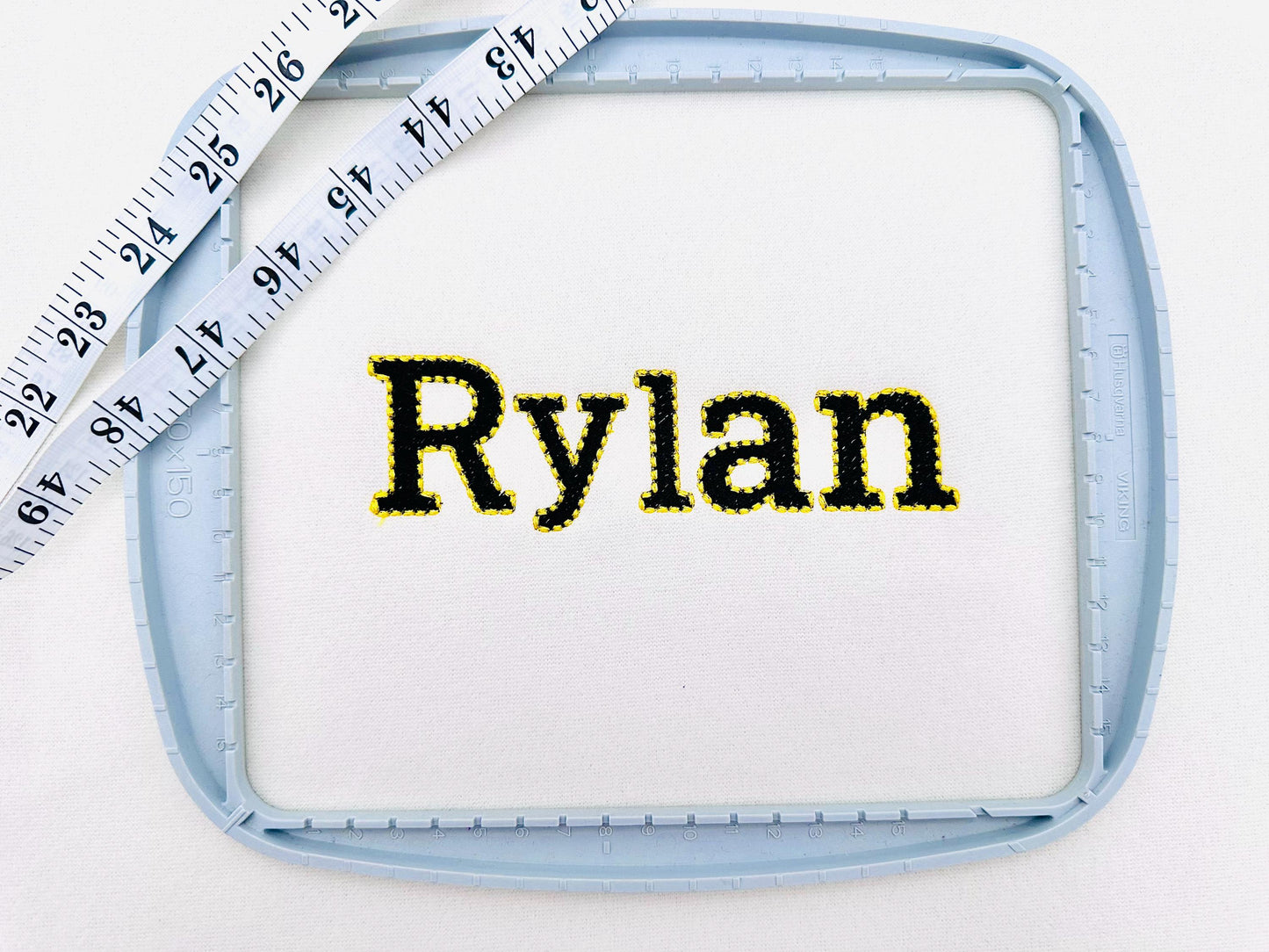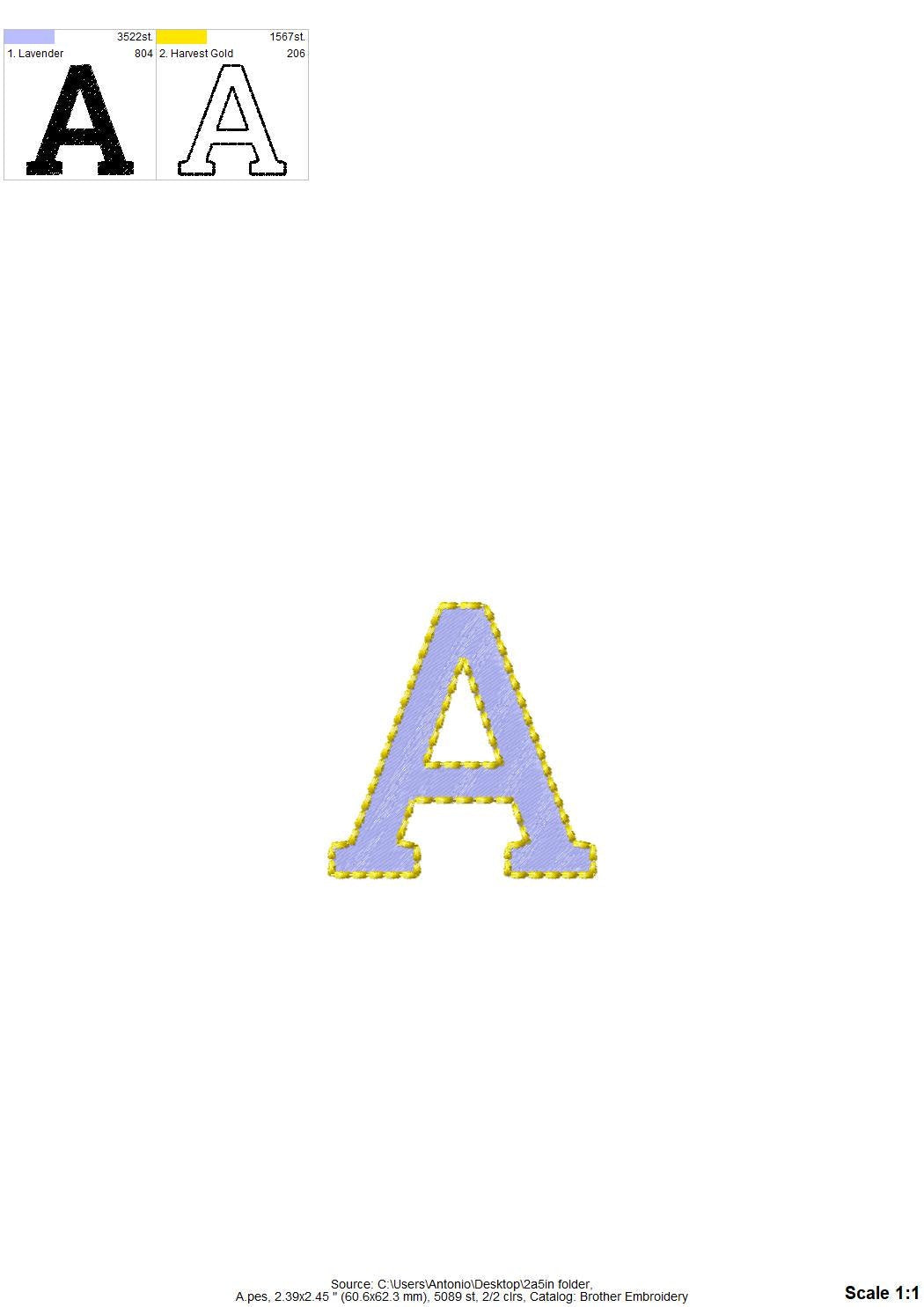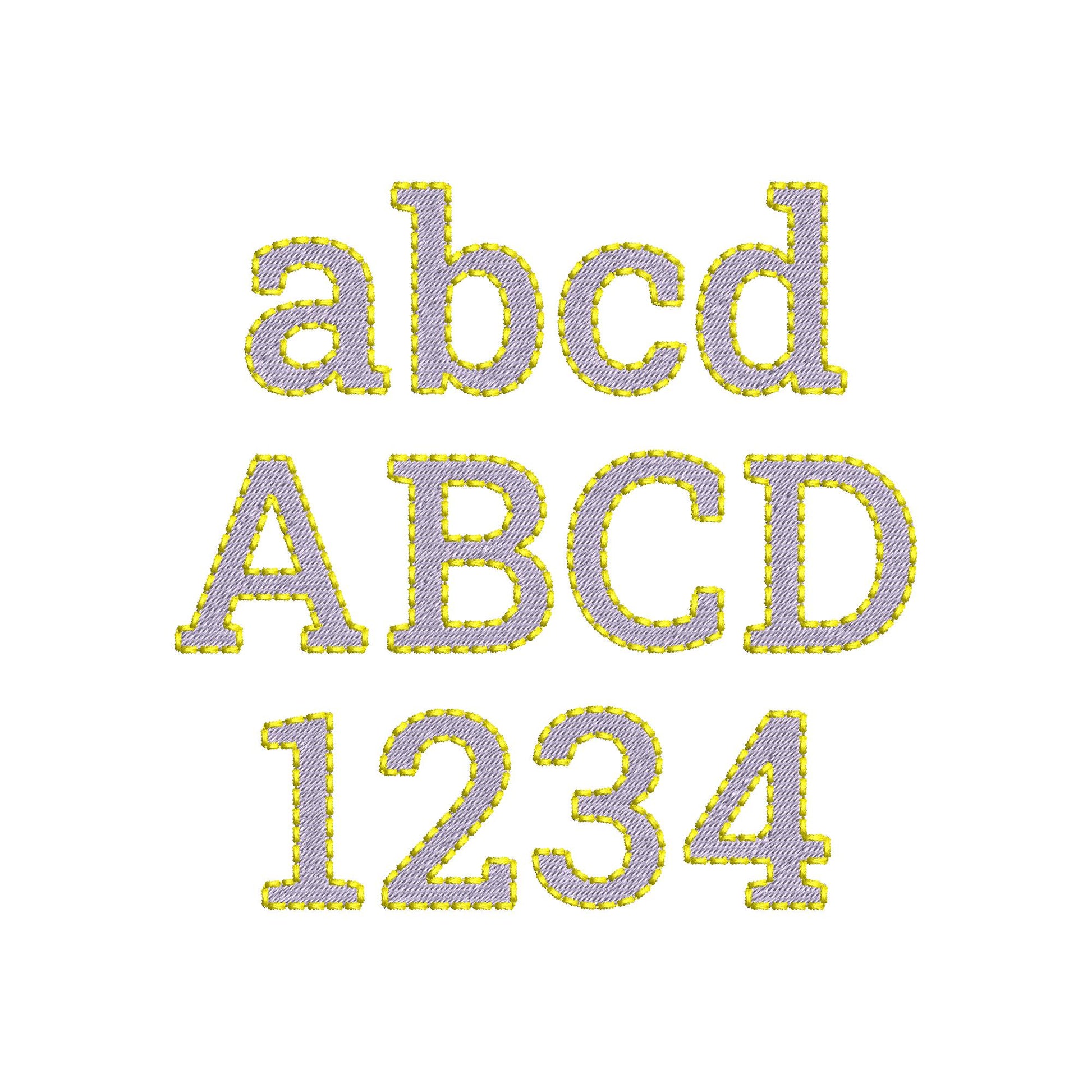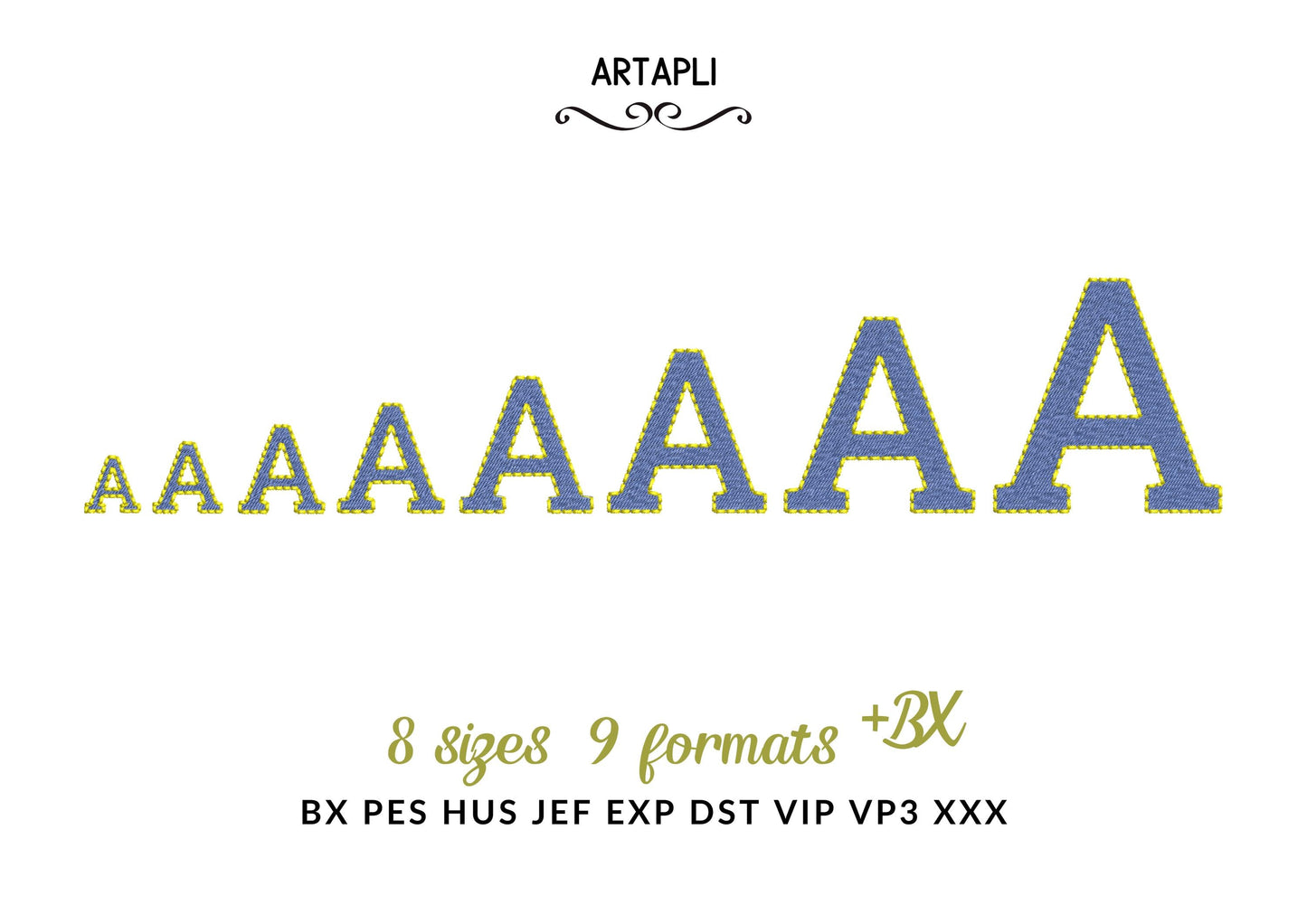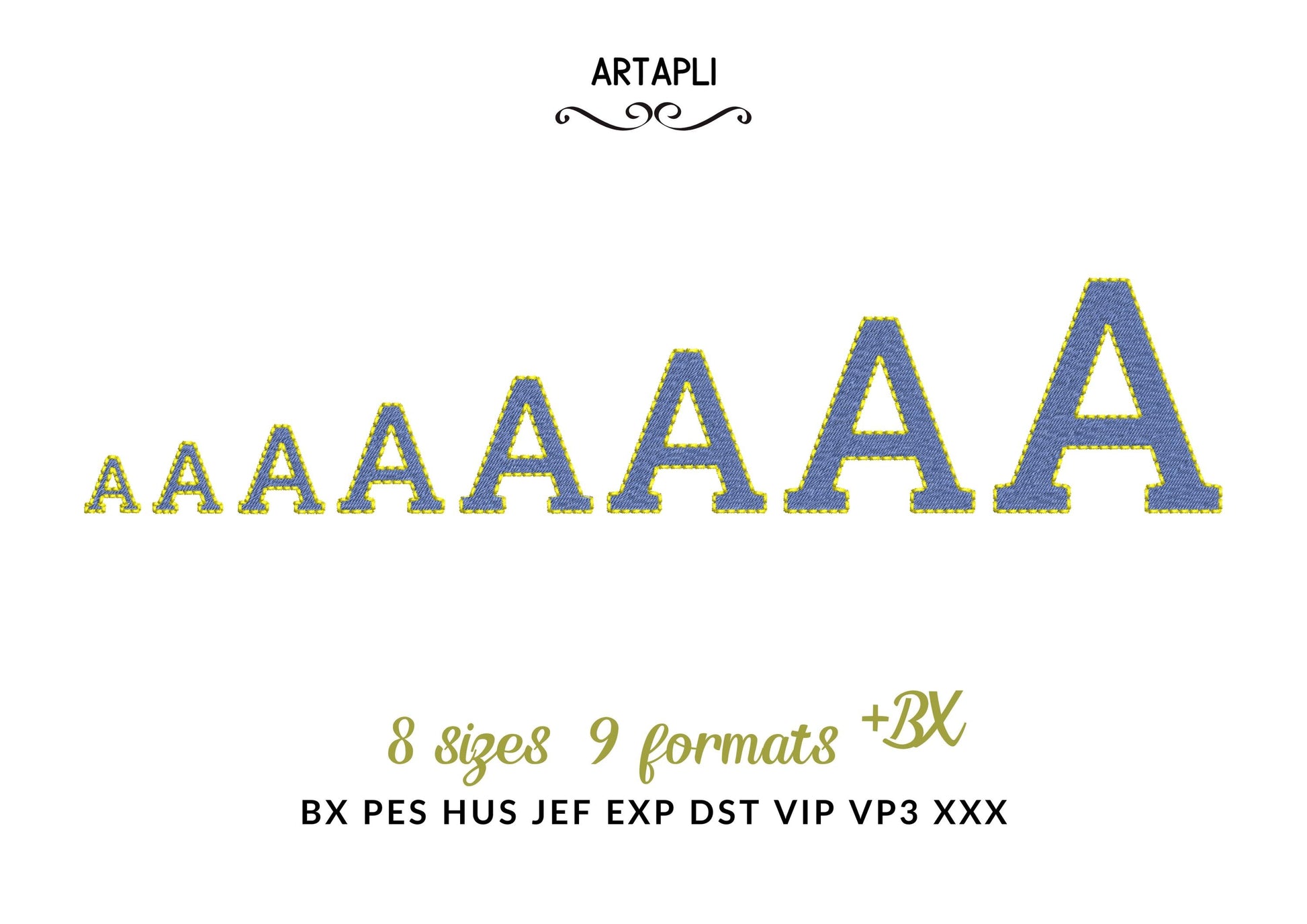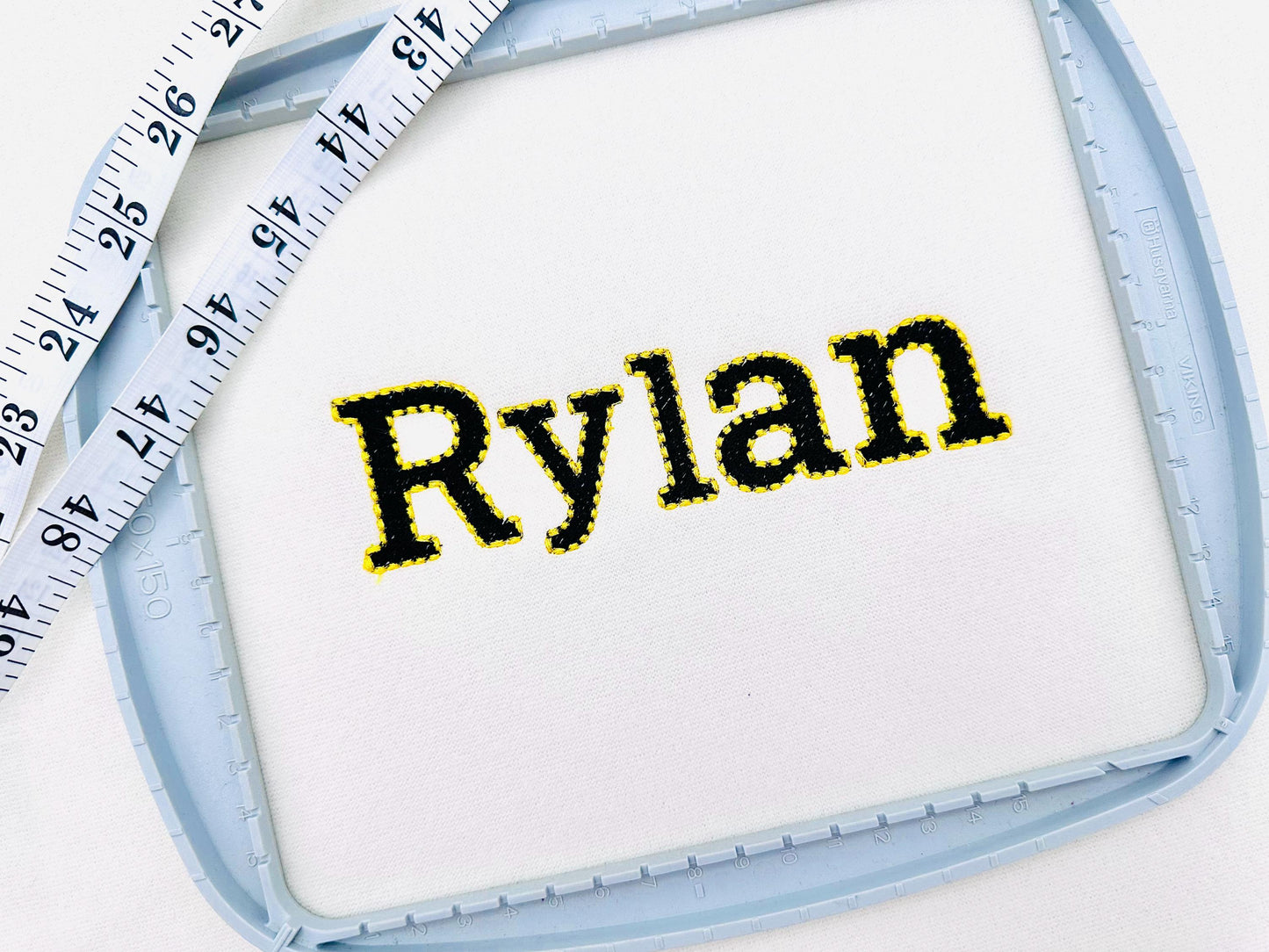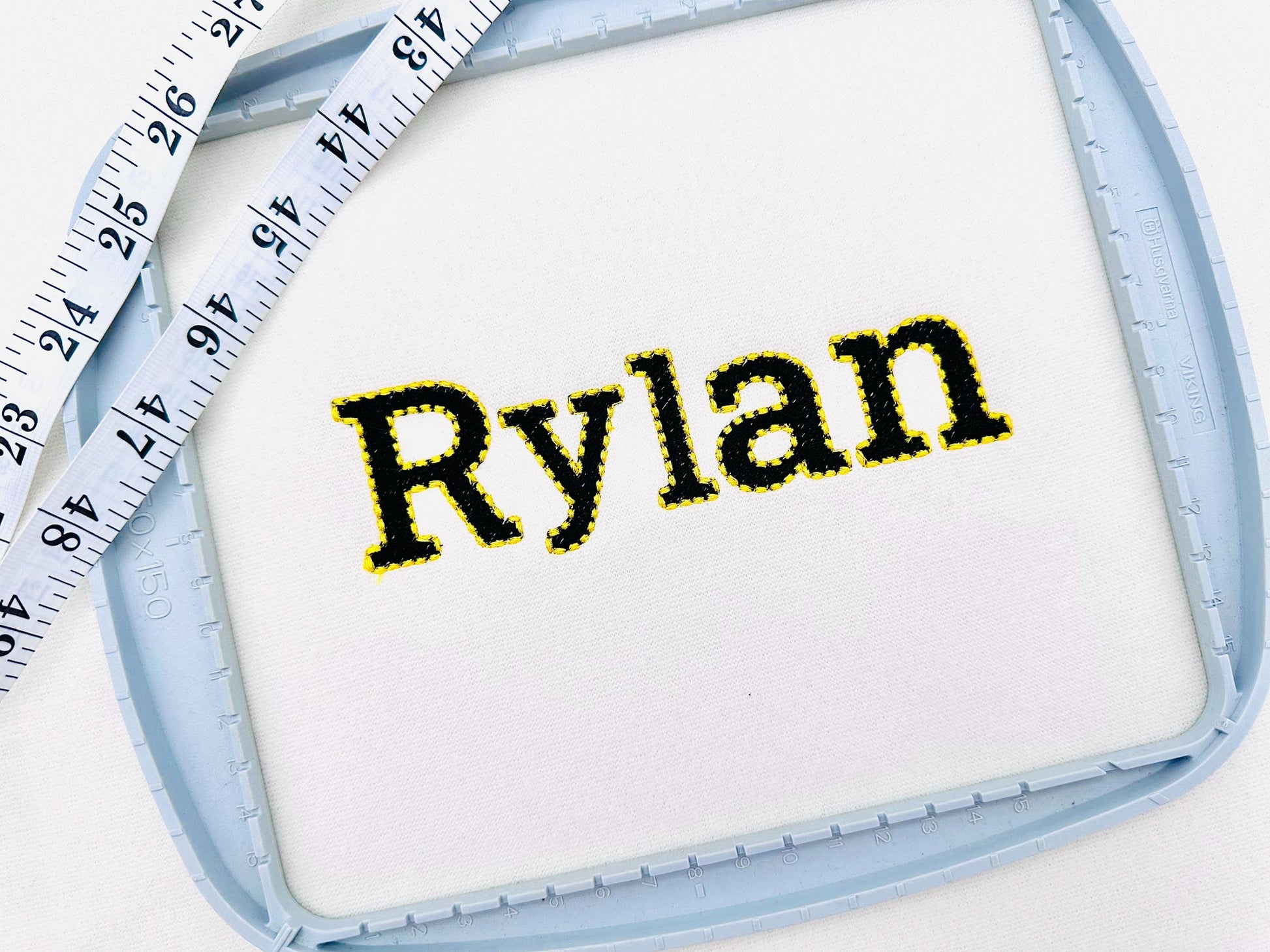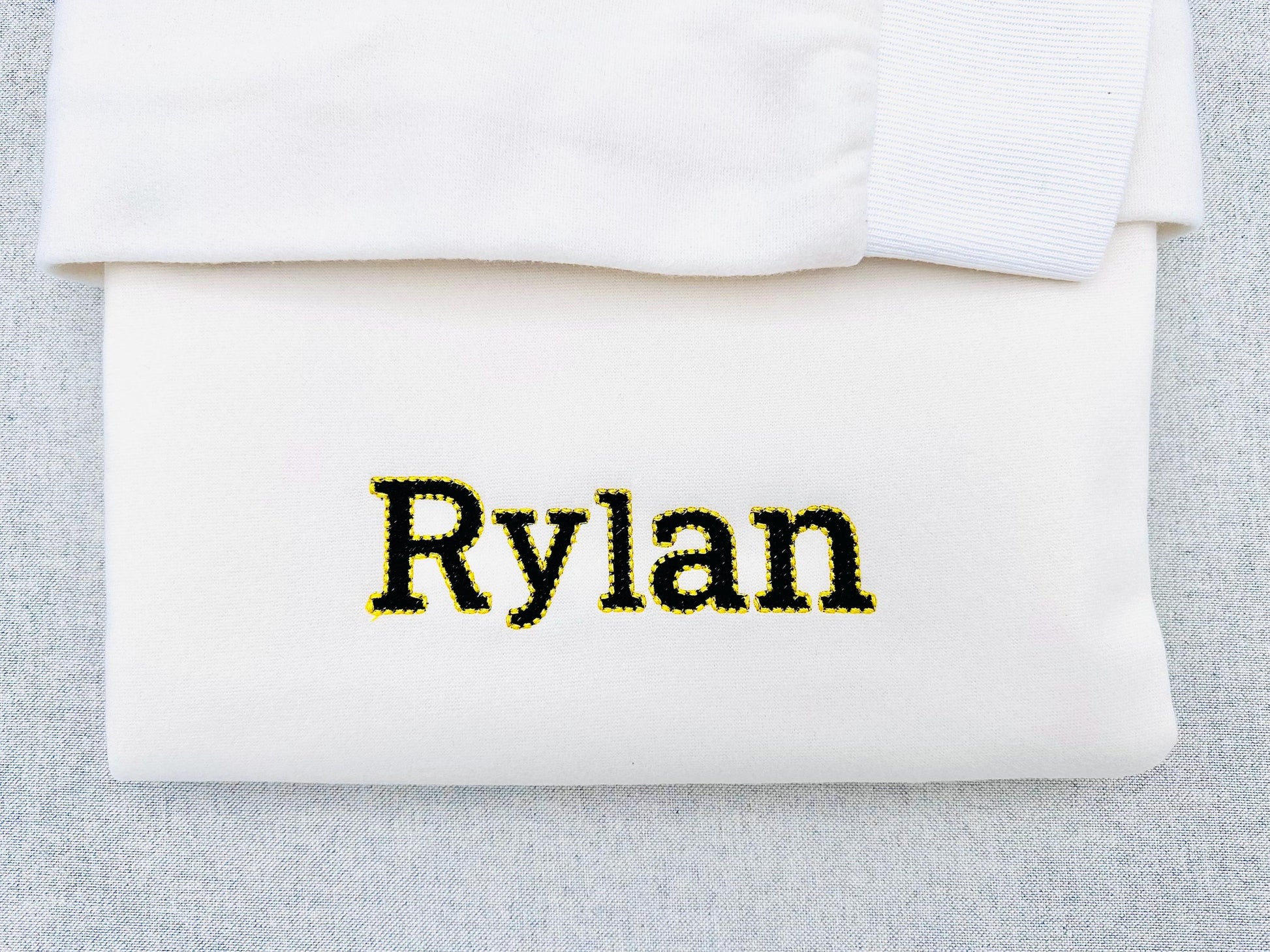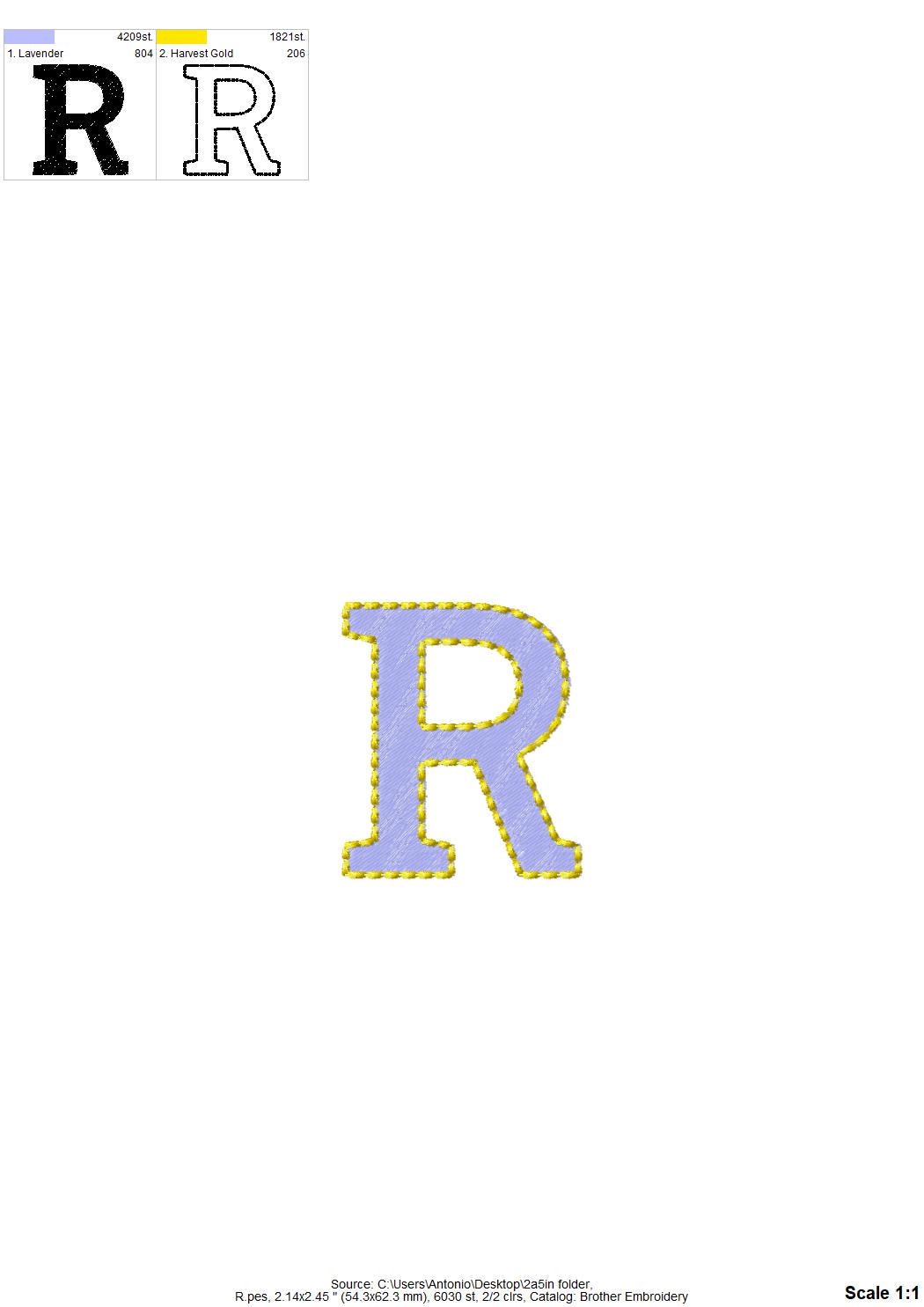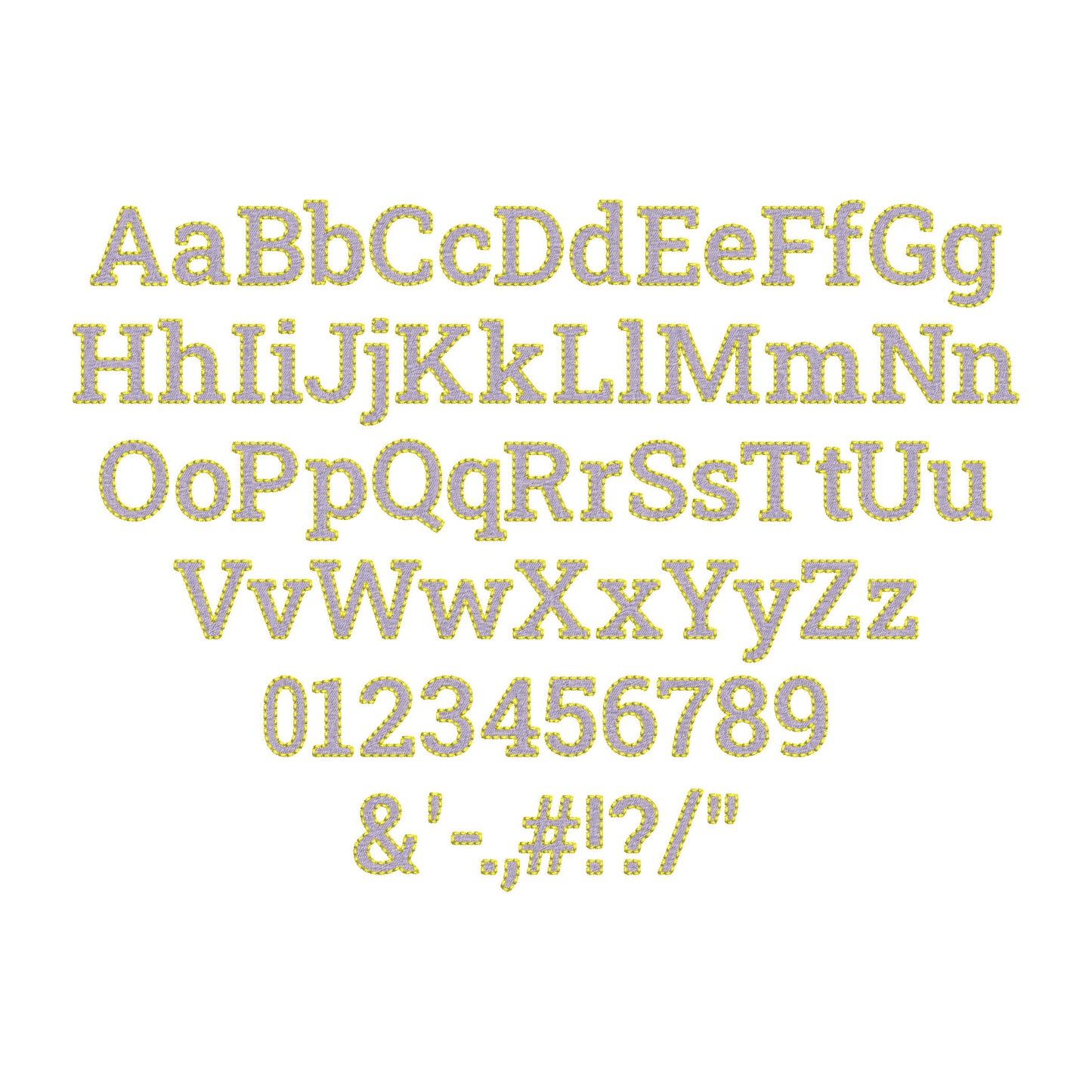
Fill stitch Font Roland
The letters come in eight sizes: 0.9, 1.1, 1.3, 1.6, 2.1, 2.5, 2.9 and 3.5 inches. Includes uppercase and lowercase letters, numbers 0-9 and punctuation.
- Roland fill stitch font: uppercase and lowercase letters, numbers 0-9 and punctuation
- 8 letter sizes, 0.9 to 3.5 in